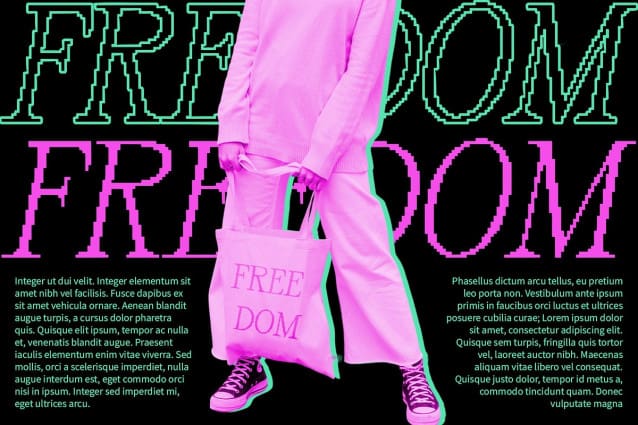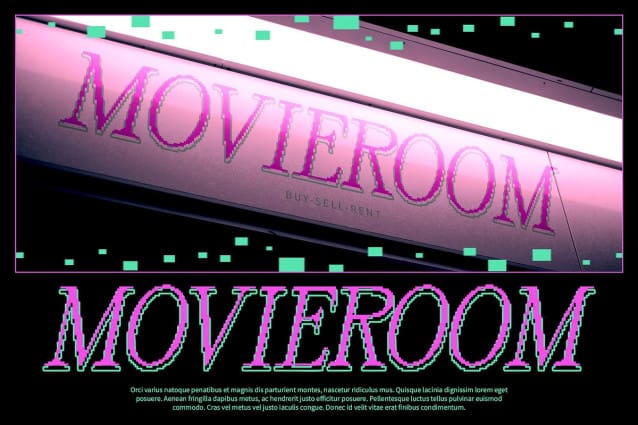
Risley Pixel Font
Risley Pixel Font is an elegant serif font that combines traditional charm with a modern, pixelated twist. Its unique design adds a touch of sophistication to your projects while infusing them with a contemporary feel.
Designed to captivate, Risley Pixel is perfect for headlines, banners, and other display purposes. Its stylish serifs and pixelated details make it a standout choice for projects that demand attention.
Risley Pixel’s pixelated twist adds a layer of sophistication to your designs. The font’s clean lines and refined details ensure that your message is conveyed with elegance and style.
Despite its serif style, RisleyPixel is versatile and impactful. Whether you’re designing a logo, poster, or website, this font is sure to leave a lasting impression on your audience, making it a valuable addition to your design toolkit.